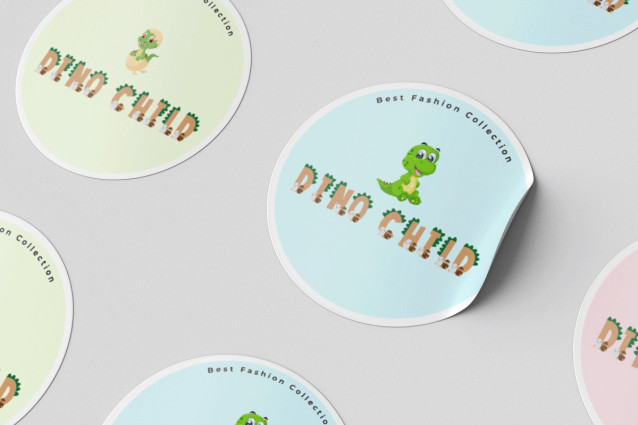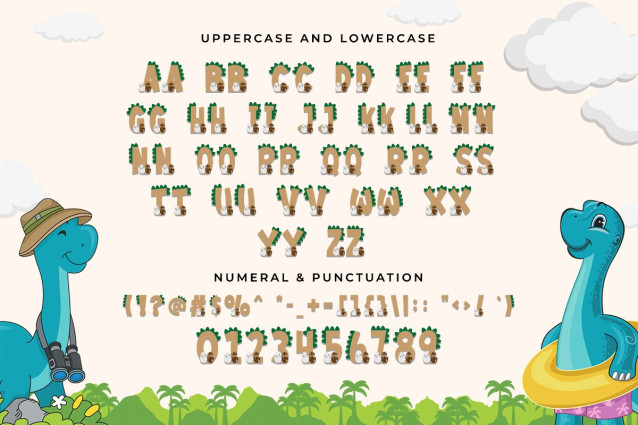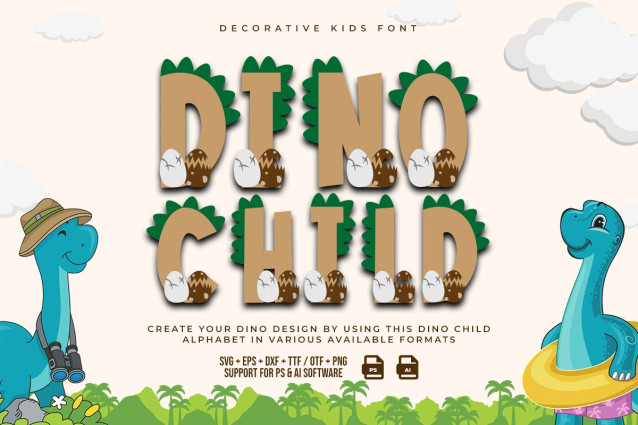
Dino Child Font
Dino Child New Decorative Kids Font is a modern font with a simple yet adorable look. A cute typeface that anyone who sees it can easily fall in love with. Upright font with two dinosaur eggs underneath, easy to understand and legible. Dino Child New Decorative Kids Font can be used as a digital font and a print font. This font can be used as comic covers, magazine covers, and children’s book covers. This font can be used for posters and banners. This reason must be equipped with colors and ornaments that support it. For small print fonts, these fonts can also be used for small amusement park merchandise, such as; key chains, refrigerator magnets, and stickers, or can be produced on t-shirts, jackets, hats, etc. In addition, it can be used as snack packaging. The application of this digital font is in product advertisements, animated cartoon videos, children’s films, and so on. This font can give an exciting and enjoyable impression to video shows. This is to attract interest in buying marketed products and watching films that have been shown. Our collection of Display fonts are compatible for use as; Figma Fonts, Canva Fonts, Freepik Fonts, and Adobe Fonts. They also function as Windows Fonts and Apple Fonts. For your social media needs, you can use and install fonts in our Espot & Futuristic font collection to use as Instagram Fonts, Facebook Fonts, and Twitter Fonts.